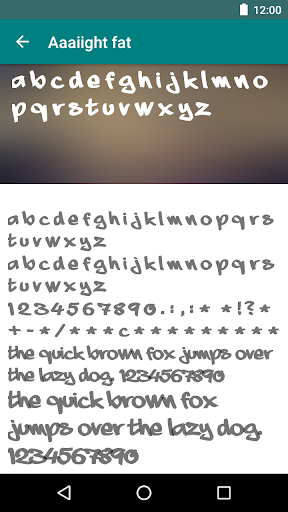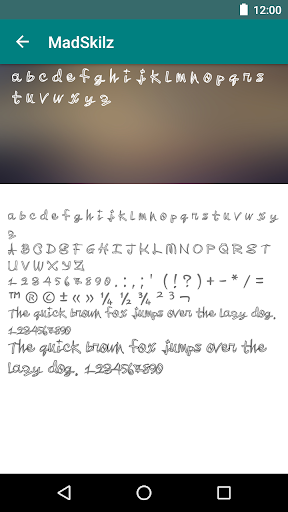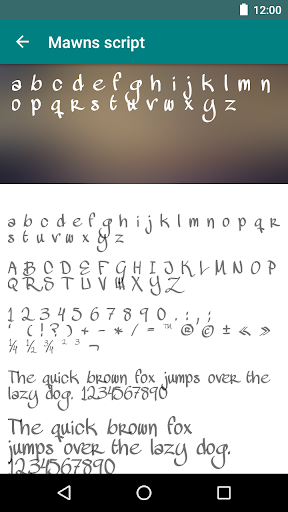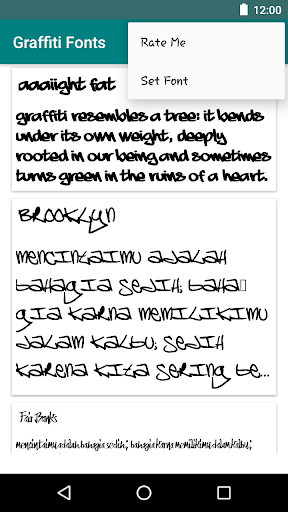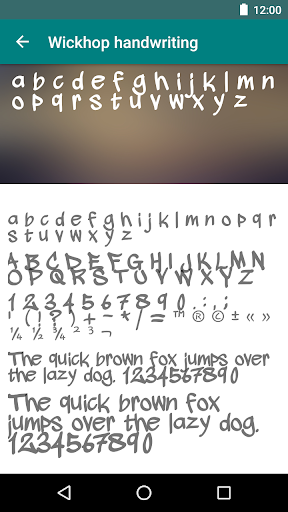
Graffiti Fonts for FlipFont
Graffiti Fonts Application is a free font pack with graffiti font style design to change your device look once you can install in your android devices. Enjoy this font pack for Samsung Galaxy and HTC smartphones.
The fonts cool, but not compatible with the sam s6 😔